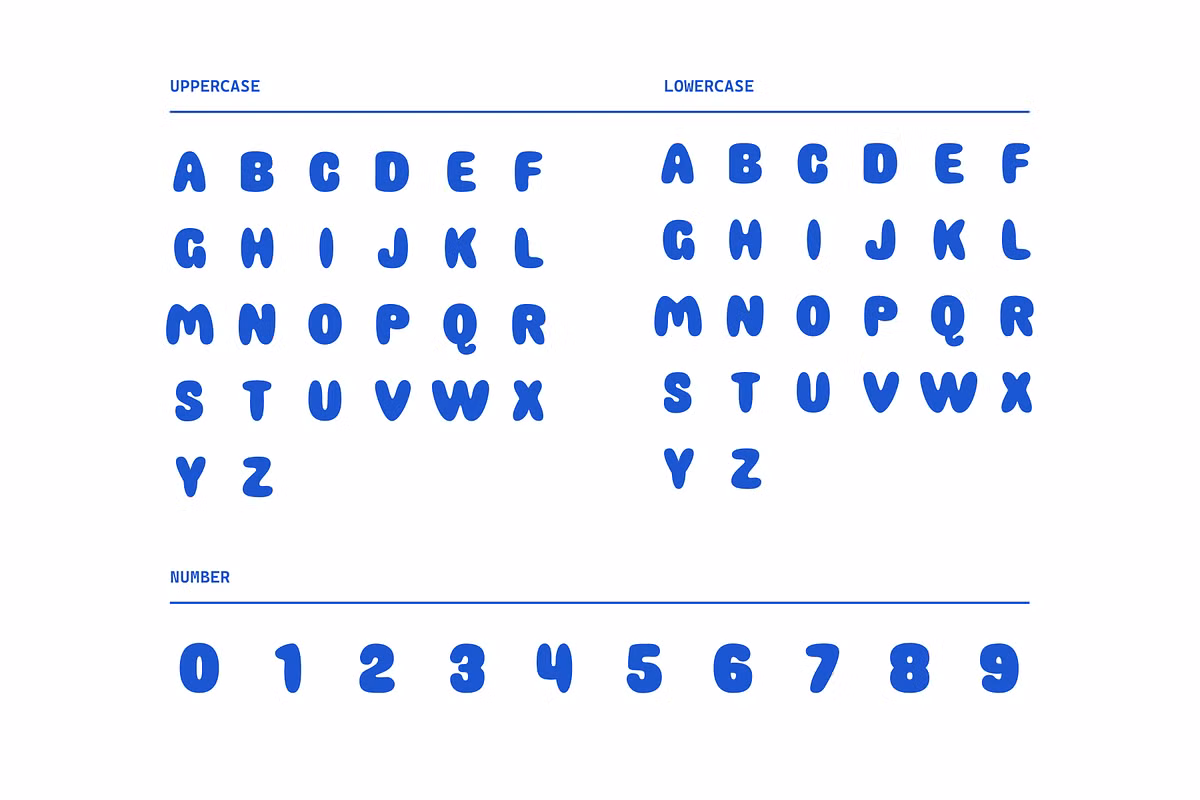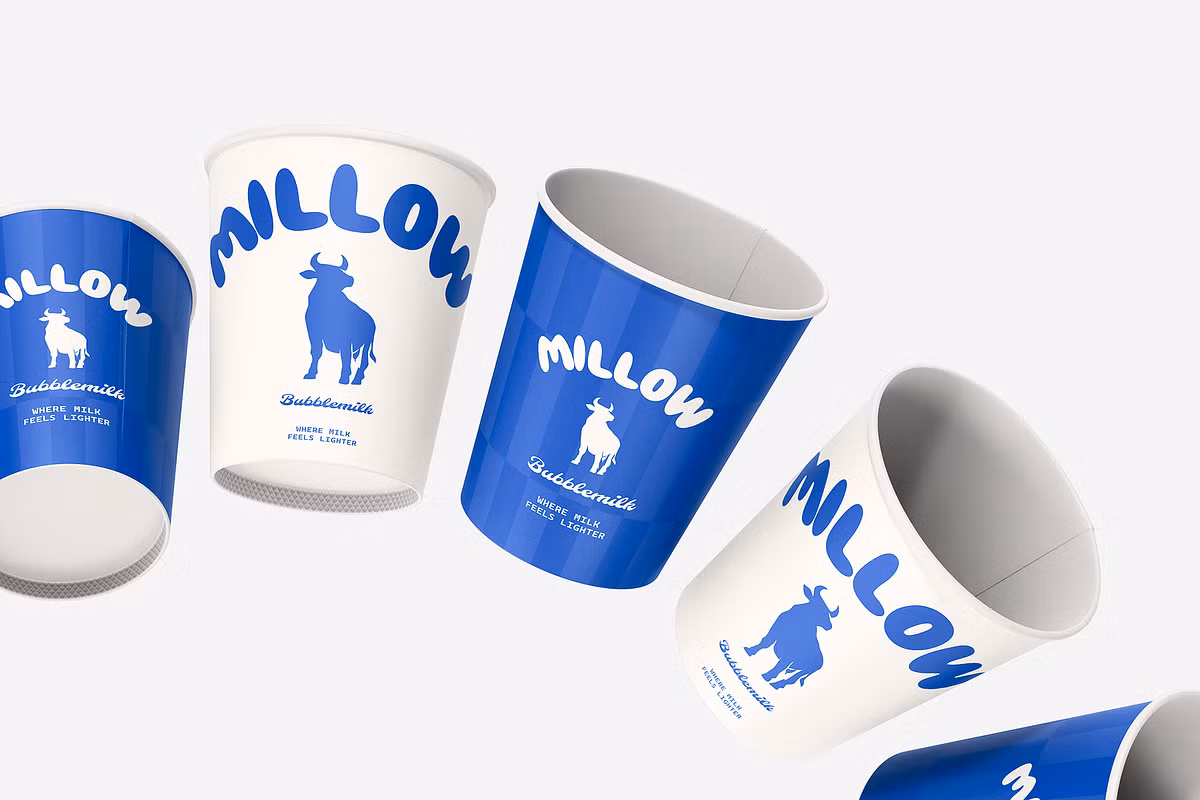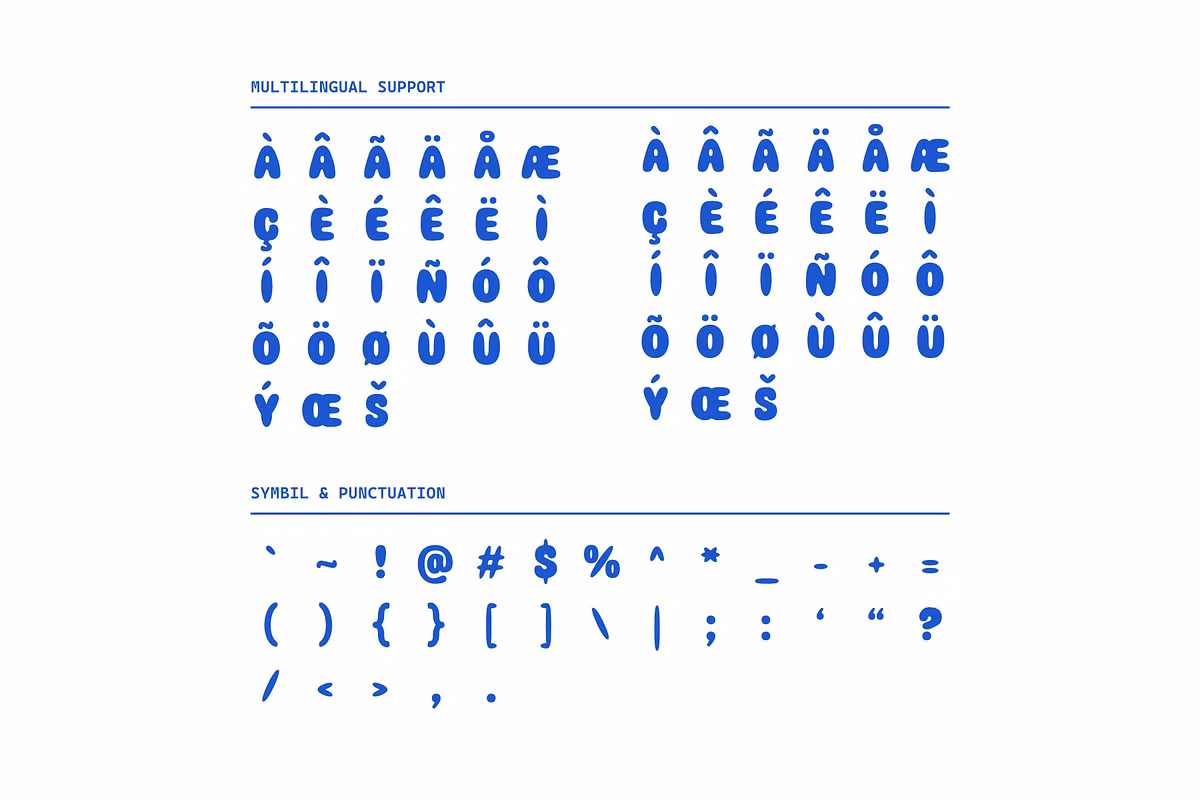
Bubble Milk: Playful Bold Display Font for Creative Projects
Meet Bubble Milk, a super fun font that’s all about being playful and cute. It’s got soft, rounded shapes and a really modern look, which makes it perfect for all sorts of creative projects. You can use it for branding, kids’ stuff, packaging, posters, headlines, logos, and even social media posts. If you want a font that’s fun, unique, and will really grab people’s attention, Bubble Milk is the way to go. It’s great for making a lasting impression and adding some personality to your designs. Whether you’re working on a big project or just something small, Bubble Milk is a great choice because it’s so versatile and easy to use. So, if you’re looking for a font that’s a little bit different and a lot of fun, give Bubble Milk a try!
The Bubble Milk design is really nice because it has soft, curvy shapes that make it look happy and welcoming. This font is not just cute, it also feels warm and fun, which makes it perfect for things like kids’ stuff or projects that need to be a little playful. The way it’s made, with smooth curves and simple lines, gives it a modern look that can fit in with lots of different design styles. It’s great for making people feel good and can be used in many different ways to add a touch of friendliness to a project. Whether you’re making something for kids or just want to make your design feel more approachable, Bubble Milk is a great choice because it’s easy to like and looks really modern.
The way words look is really important for getting your message across, and Bubble Milk is great at this. The font is fun and playful, which makes it perfect for catching people’s attention in things like kids’ books or posters for exciting events. Because it’s bold and eye-catching, it works well for both printed and digital things. It’s a great way to make your message stand out and be noticed. Whether you’re trying to be serious or just have fun, Bubble Milk’s playful personality can help you get your point across in a way that’s both fun and effective.
Character Sets
Bubble Milk has a big set of characters – it’s got capital letters, small letters, numbers, and lots of punctuation marks. This means designers can make all sorts of cool text layouts. So, if you’re making a headline that grabs attention or a fun logo, you can use Bubble Milk to get your ideas across in a clear and creative way. It’s really versatile, which is great for designers who like to try out new things. With all these characters, you can make your text look however you want, and that’s pretty exciting. Whether you’re going for something simple or something fancy, Bubble Milk’s got you covered.
The Bubble Milk font is really good for projects that need to be in many different languages. It looks the same in all of them, so your brand or message still feels fun and playful, no matter who’s seeing it. This makes it a really useful font to have, and it can be used in a lot of different ways.
Use Cases
Bubble Milk has a lot of different uses and can be really helpful in many projects. Let’s take a look at some of the most interesting ways it can be used.
- Branding: The bold and friendly nature of Bubble Milk makes it a fantastic choice for brands targeting children or family-oriented products. Think of children’s toys, educational materials, or fun food packaging.
- Children’s Projects: Whether it’s a children’s book, a school project, or a playful website, this font brings a sense of joy and engagement, perfect for capturing the attention of young audiences.
- You can make really cool posters with Bubble Milk. It’s great for parties and fairs because it’s fun and colorful. When you use Bubble Milk, your posters will definitely stand out, even in really busy areas. It’s perfect for things like birthday parties or community events where you want to grab people’s attention.
- When it comes to making social media graphics, Bubble Milk really stands out. It’s all about creating visuals that people will remember and want to share with others, which is key to getting more engagement on your posts.